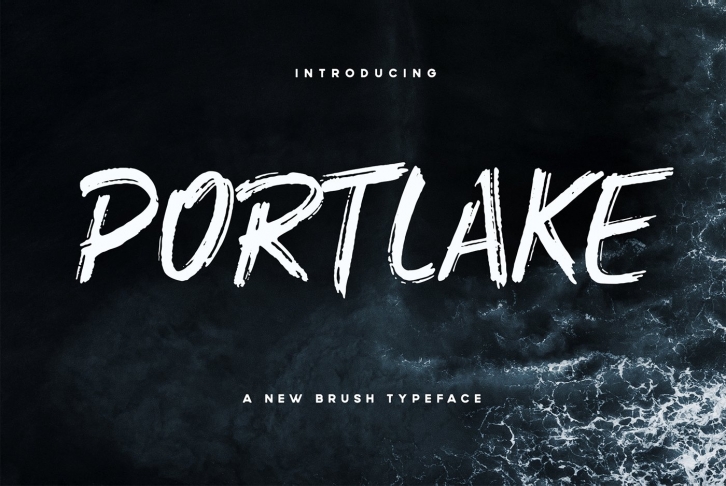
Portlake Brush Typeface FONT Download
Portlake Brush Typeface is a hand crafted brush typeface. Portlake is all caps typeface with different version of uppercase and lowercase characters. The font support multilingual characters. For the styles itself Portlake come with two styles, one Regular and one Italic, so you have more options.
Portlake Brush Typeface suitable for any graphic designs such as branding materials, t-shirt, cover, thumbnail, print, business cards, logo, poster, t-shirt, photography, quotes .etc
• Uppercase Character (CAPS)
• Lowercase Character (CAPS)
• Numerals
• Punctuation & Symbol
• International Language
• Open Type Features